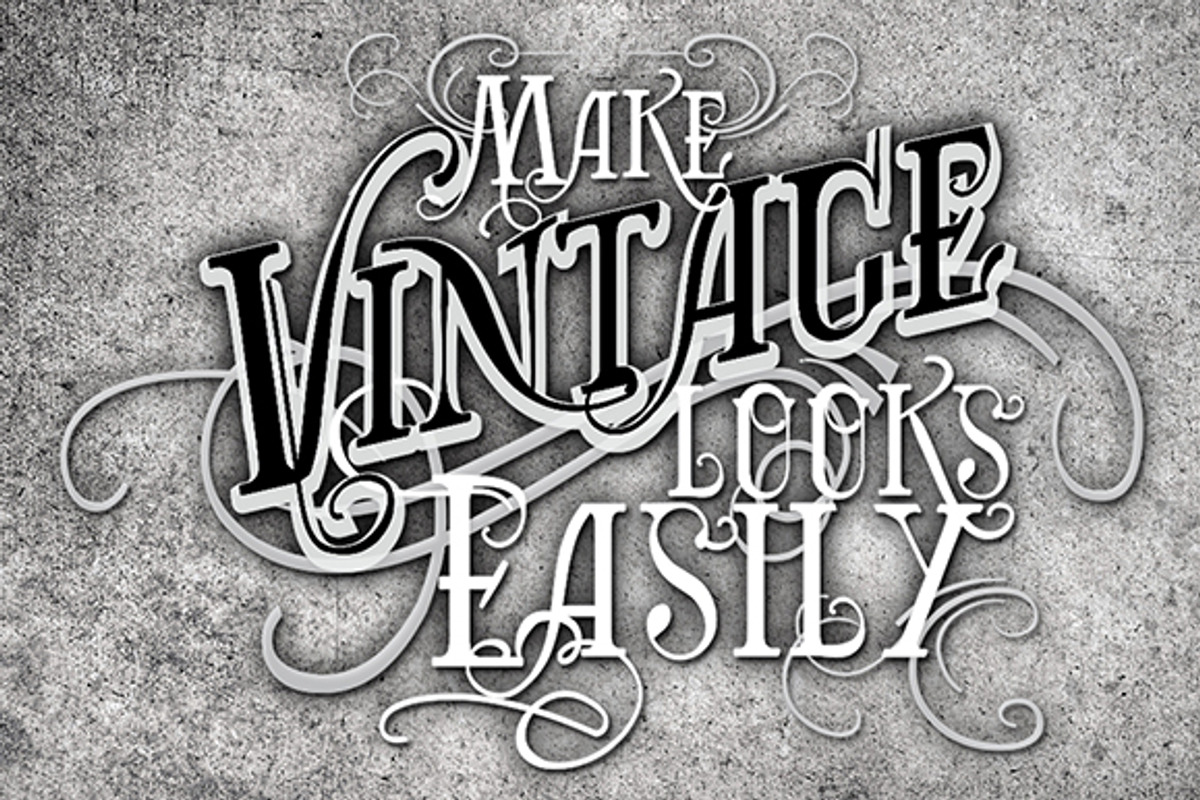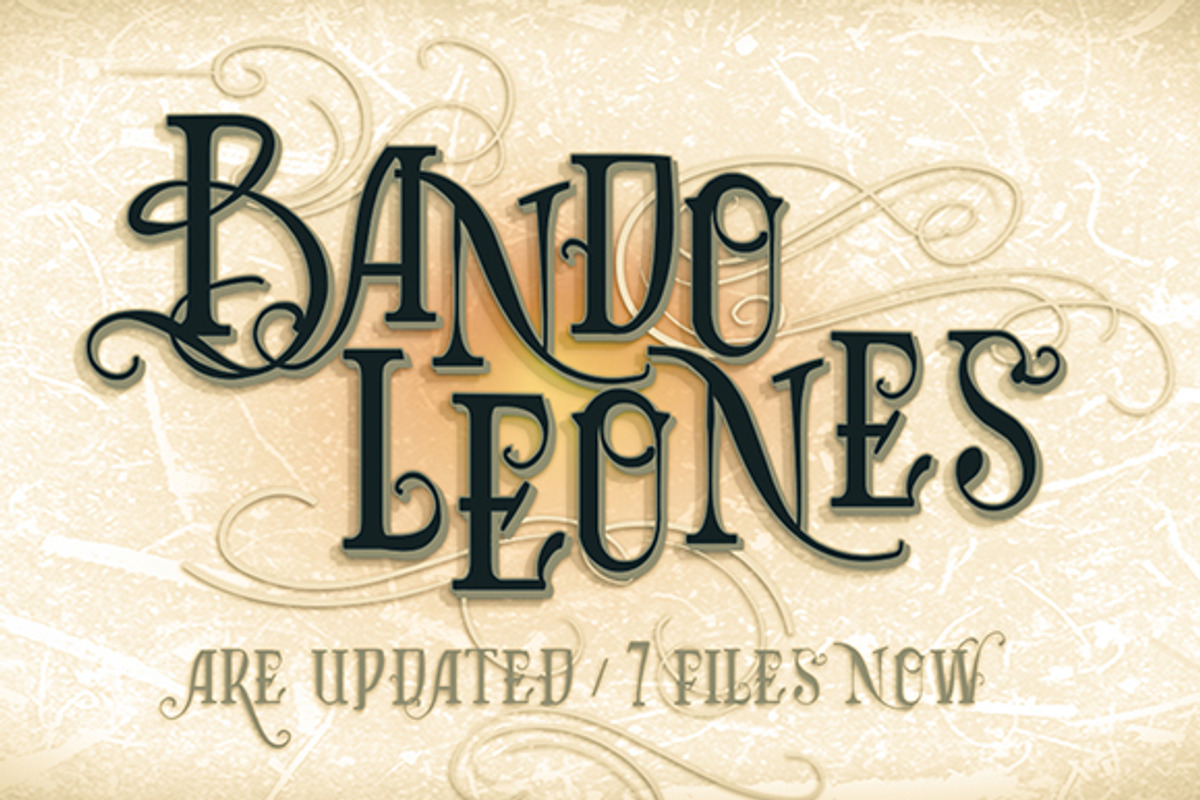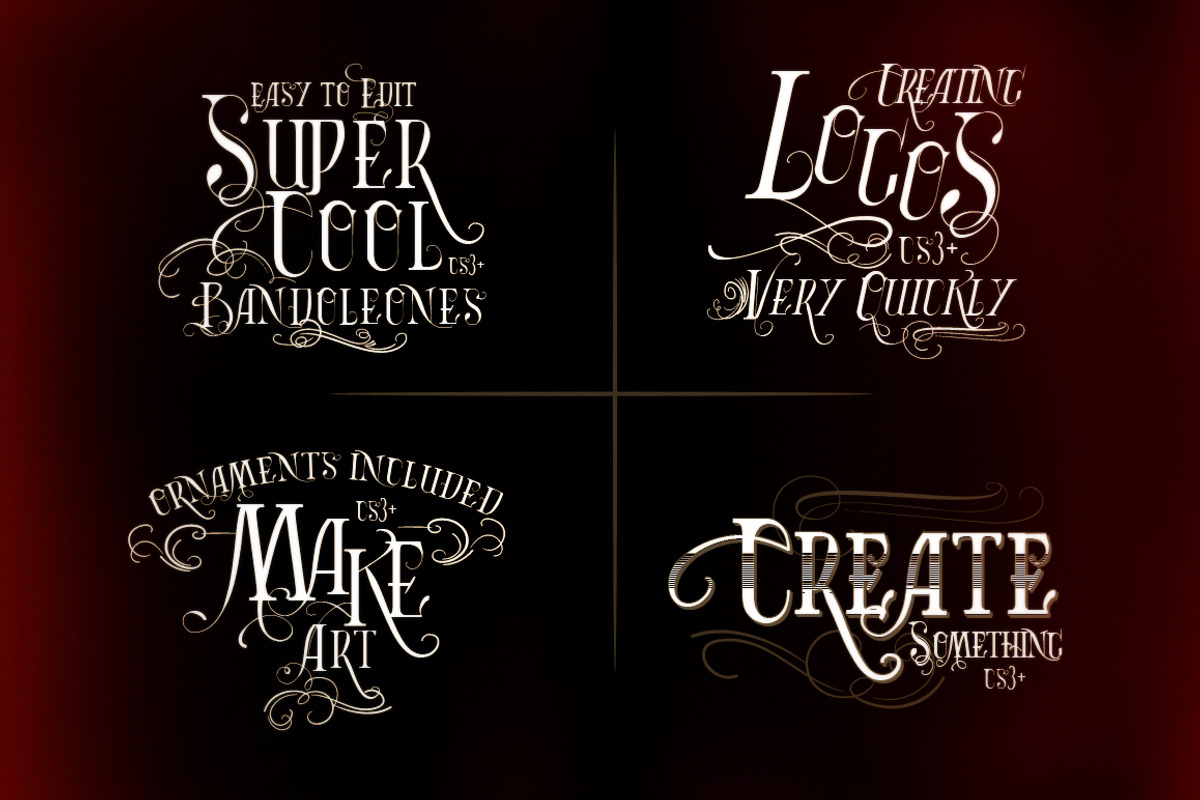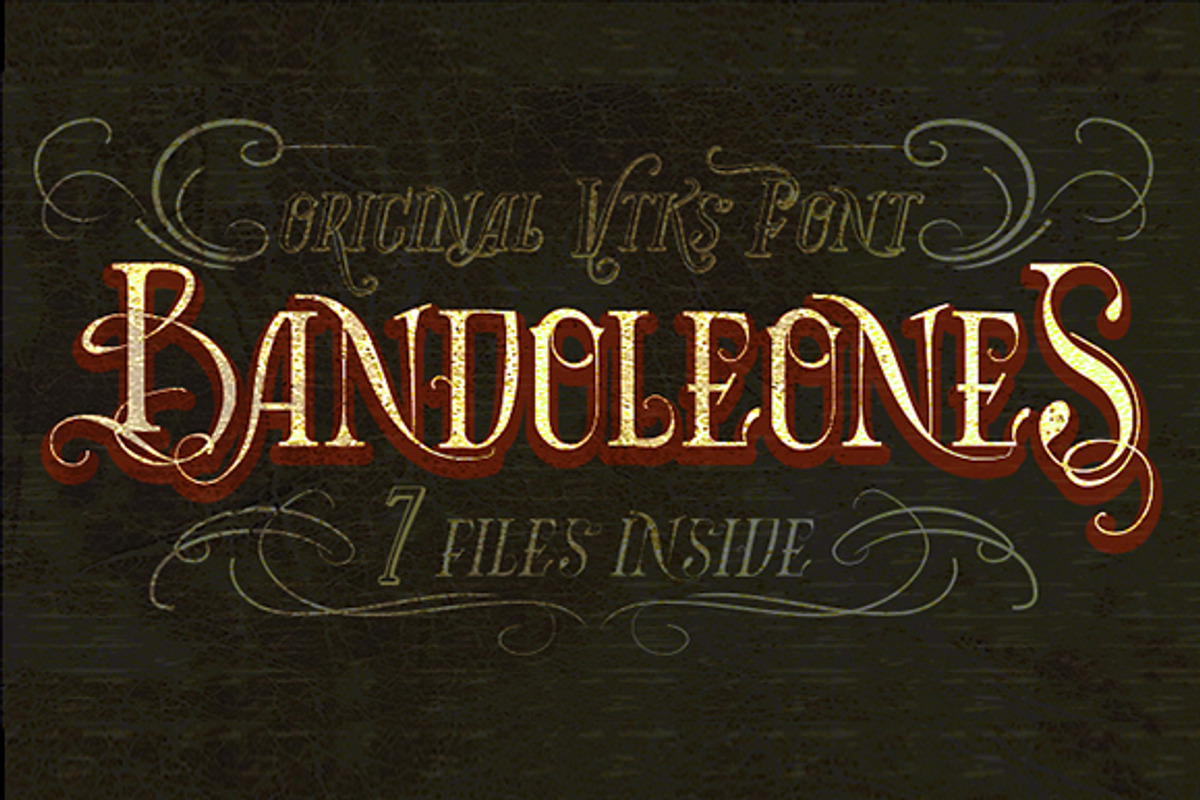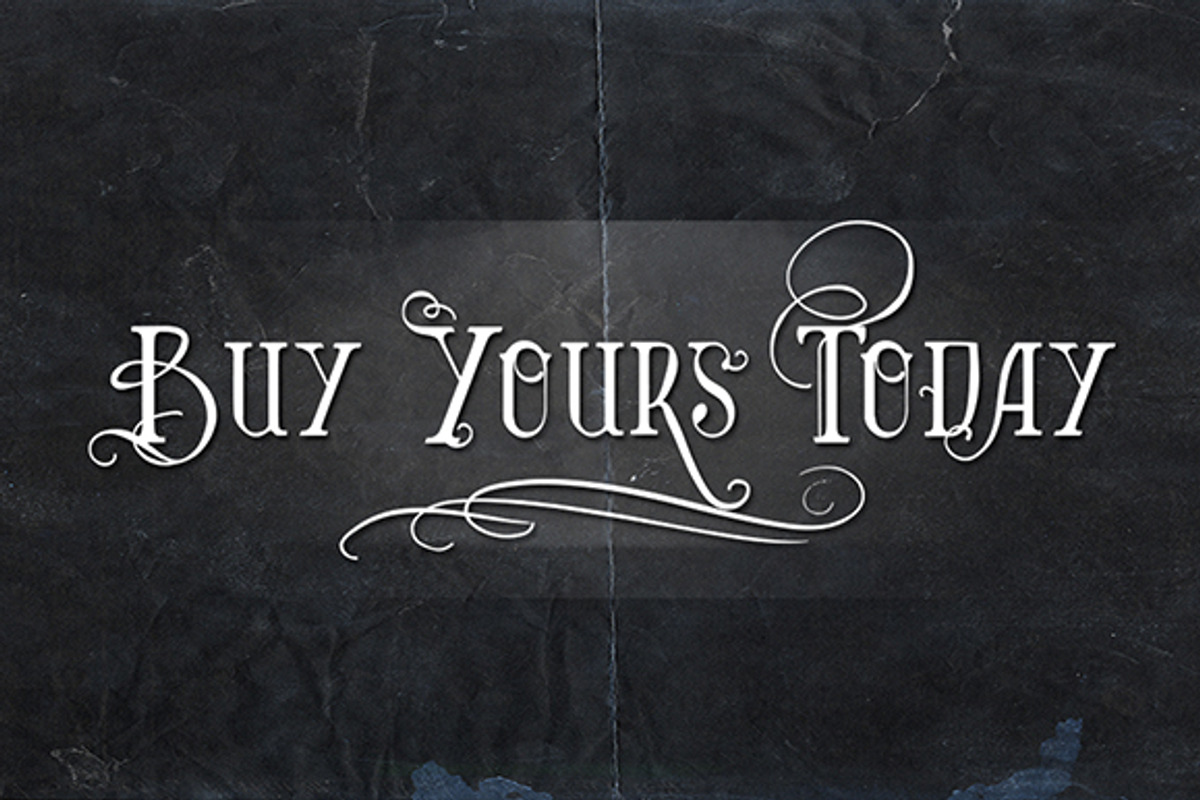
Bandoleones font 7 files+4arts(cs3+)
Bandoleones font 7 files+4arts(cs3+) by vtks design is a font selected for branding, posters, packaging, typography.
Bandoleones font 7 files+4arts(cs3+) by vtks design fits naturally into Branding, posters, packaging, typography.